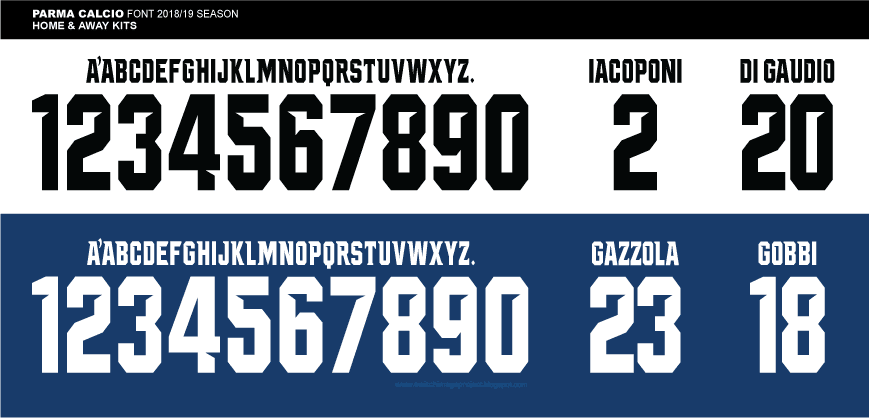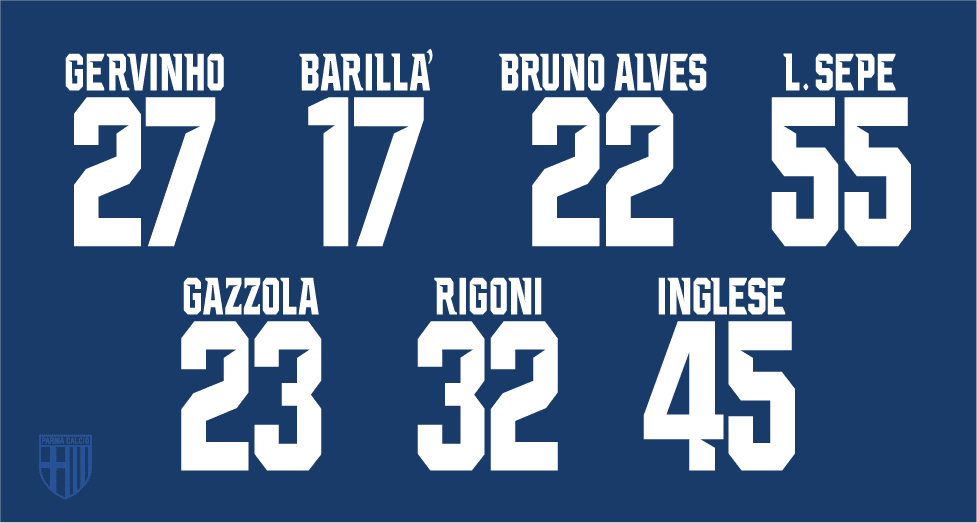
Parma Calcio font 2018-19 Designed by Erreà
Parma is one of those Italian teams hard to hate: maybe it's cause of the coolness of the shirt, the baggy nostalgia or just how pleasant it is to make a trip to Tardini. In few words - removed the rival teams and supporters - it's very difficult to deeply hate Parma.
This season is also the year of the great return in Serie A with a dignified team that aims for a safe salvation and a jersey that has been appreciated all over Europe. A gem of the new shirt designed by Erreà is the custom font for I Crociati. The characters are bold with aggressive cuts inside the numbers, the color is black on the home shirt, white on the away one and on the third kit. The Parma font is one of the most interesting in Serie A along with those of Lazio, Inter and Juventus.